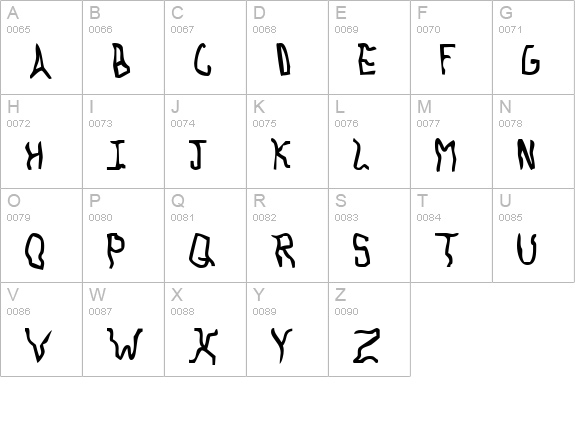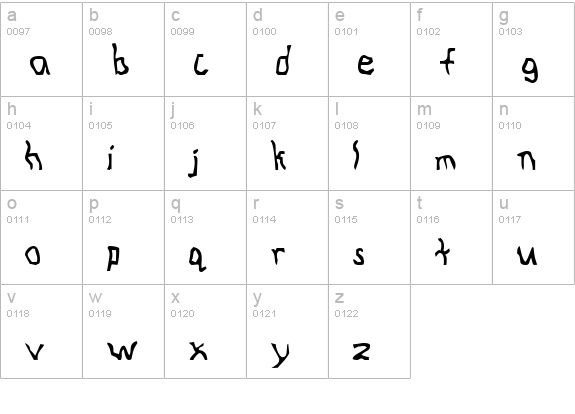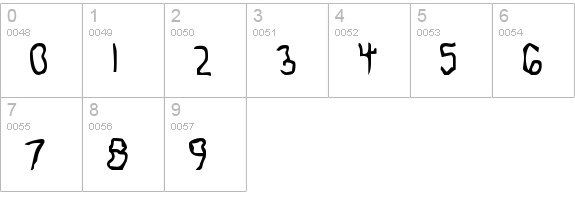
Knocked Around Font Details
Introducing the captivating Knocked Around font, a typeface that exudes a unique blend of edginess and playfulness. With its bold and rugged letterforms, this font is perfect for adding a touch of grit and character to any creative project. The Knocked Around font is designed to make a statement, commanding attention with its distinctive distressed appearance. Each letter is skillfully crafted to mimic the imperfect imperfections of hand-painted signs, giving your designs an authentic and vintage feel. What sets Knocked Around font apart is not only its striking aesthetics but also its versatility. Whether you're working on a poster, logo, packaging, or any other design project, this font will effortlessly adapt to any style or concept you have in mind. And the best part? Knocked Around font is completely free! Yes, you read that right. This incredible font is freely available to download at FontsMarket.com, making it easily accessible to all designers and creatives looking to add a touch of originality to their work. So why wait? Elevate your designs with the Knocked Around font today and let its bold and rugged charm make a lasting impression. Get ready to turn heads and captivate your audience with this one-of-a-kind typeface that is sure to leave a lasting impact.